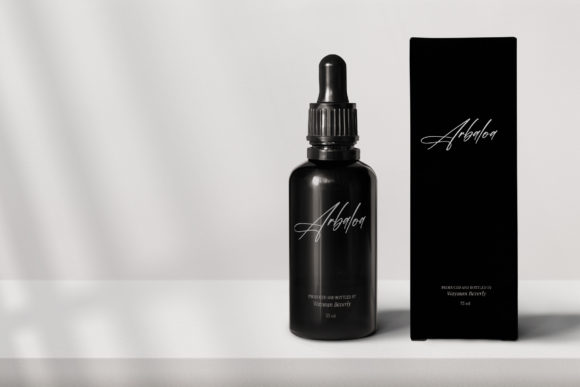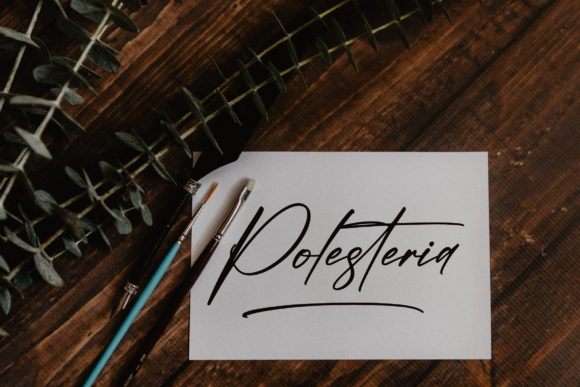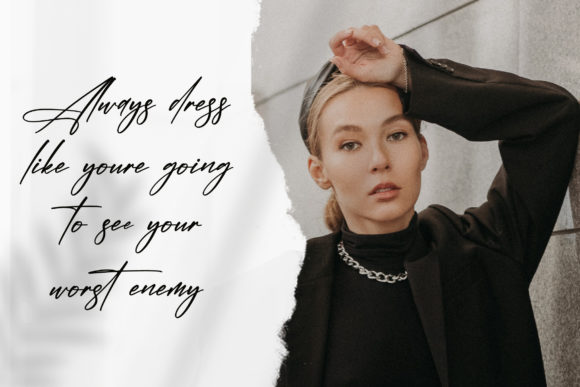
Introduction to Polesteria Font
As a designer, there’s nothing quite like the thrill of landing on the perfect font for a creative project. You’ve poured over countless design resources, scoured the web for inspiration, and finally, you stumble upon that elusive perfect match. For many of us, that perfect font is Polesteria Font – a delicate, handwritten beauty that adds a touch of whimsy and romance to any design.
Whether you’re crafting wedding invitations, cards, or simply want to add a personal touch to a design, Polesteria Font is the perfect choice. Its dainty, joyful feel is sure to transport your audience to a world of sweetness and delight. And the best part? With a transparent background and high-quality design, you can be sure that your creative vision will shine through.
Key Features of Polesteria Font
- High-quality design resource suitable for creative projects, offering a sophisticated and elegant aesthetic.
- Comes with a transparent background, allowing for seamless integration into various design elements and backgrounds.
- Unique characteristics include its slender lines and subtle flair, making it an excellent choice for headings, titles, and other prominent text elements.
- Perfect for designers looking to add a touch of sophistication and elegance to their creative projects, from branding and advertising to publishing and digital media.
I recently had the chance to experiment with the Polesteria Font, and I must say it’s been a delightful addition to my design resource collection. This free download has been a game-changer for my creative project.
- High-quality design: The Polesteria Font boasts a sophisticated and modern look, perfect for making a statement in any design.
- Transparent background: The font’s transparent background makes it easy to layer and blend with other design elements, giving me endless possibilities for creative combinations.
Any limitations ⚠️
- Limited style options: While the Polesteria Font is a great choice for modern designs, it may not be suitable for projects that require a more classic or vintage feel.
- Not suitable for small text: Due to its modern design, the font may not be the best choice for text that needs to be read at a distance or in small sizes.
Overall, I’m thoroughly impressed with the Polesteria Font. Its high-quality design, transparent background, and free download make it a valuable addition to any design resource collection. While it may have some limitations, I’ve found it to be a fantastic choice for my creative projects.
How to Use Polesteria Font
Tips for Getting the Most Out of Polesteria Font
To get the most out of Polesteria Font, use it with a transparent background to create a clean and modern look. Experiment with different font sizes and styles to add visual interest to your designs.
Polesteria Font is perfect for:
- Creating a logo or brand identity
- Designing a brochure or flyer
- Creating a social media graphic or post
Q: Is Polesteria Font a high-quality font, suitable for professional design projects?
Yes, Polesteria Font is a high-quality font designed specifically for professional designers and creatives. The font features a clean and modern design, with a wide range of weights and styles to suit various design projects. The font’s high quality ensures that it will look great on both digital and print materials, making it an excellent choice for any creative project.